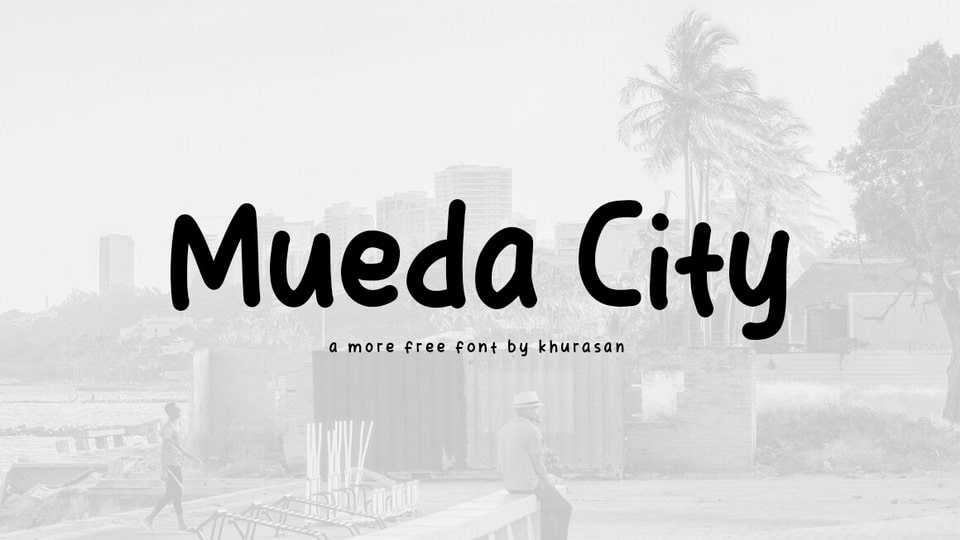
Download Mueda City font, a typeface that seamlessly blends the charm of hand-drawn simplicity with the playfulness of comic book lettering. Mueda City font is perfect for projects that aim to infuse a sense of whimsy and fun into their design.